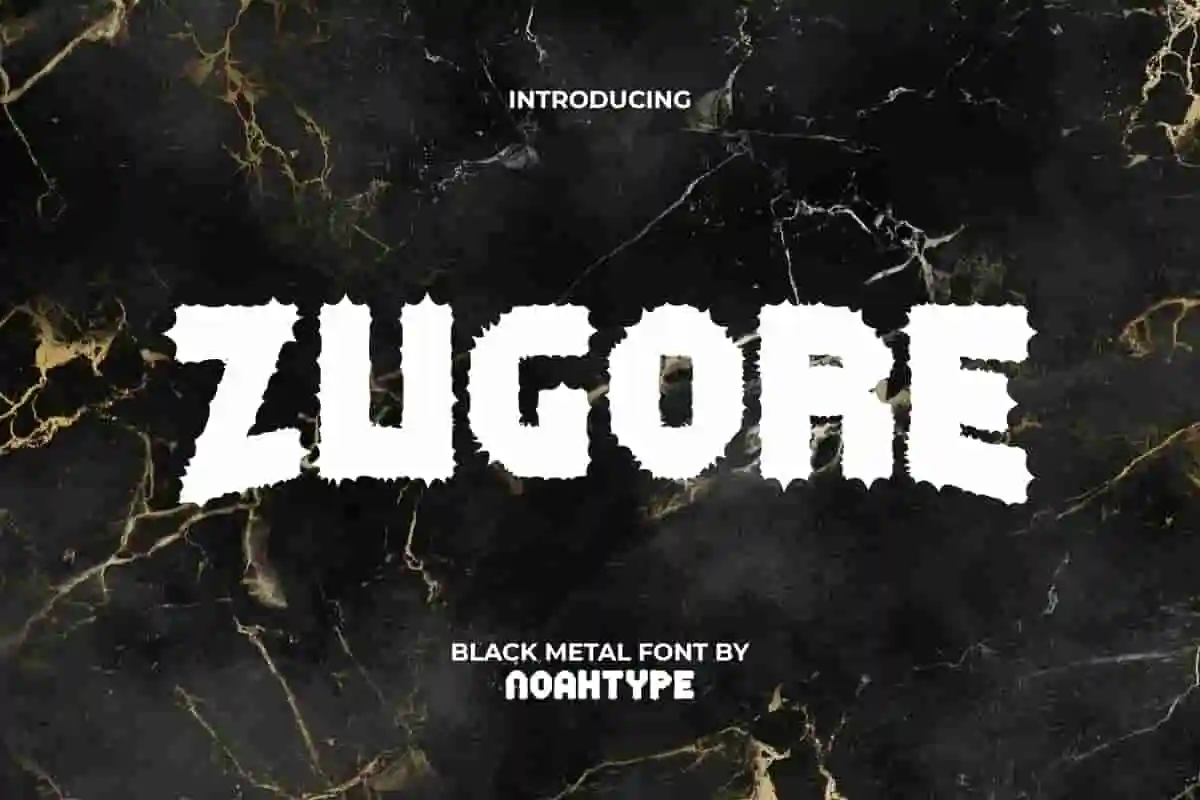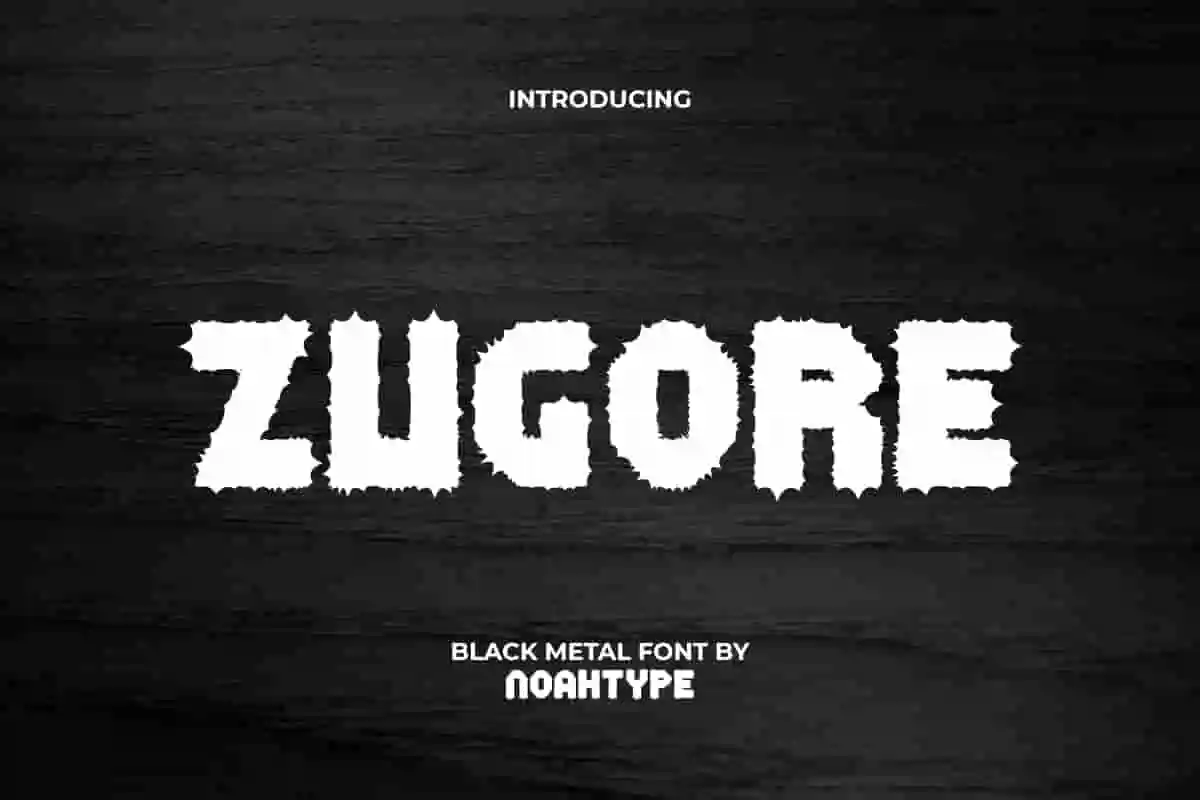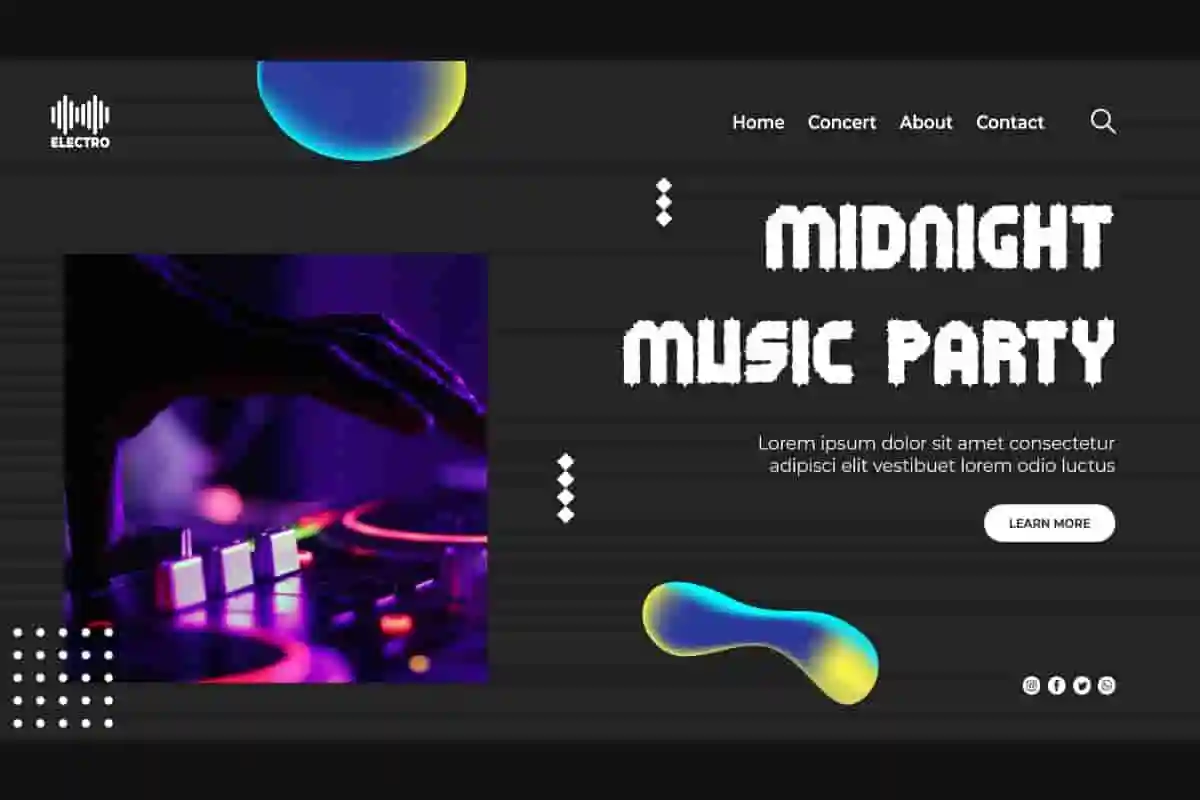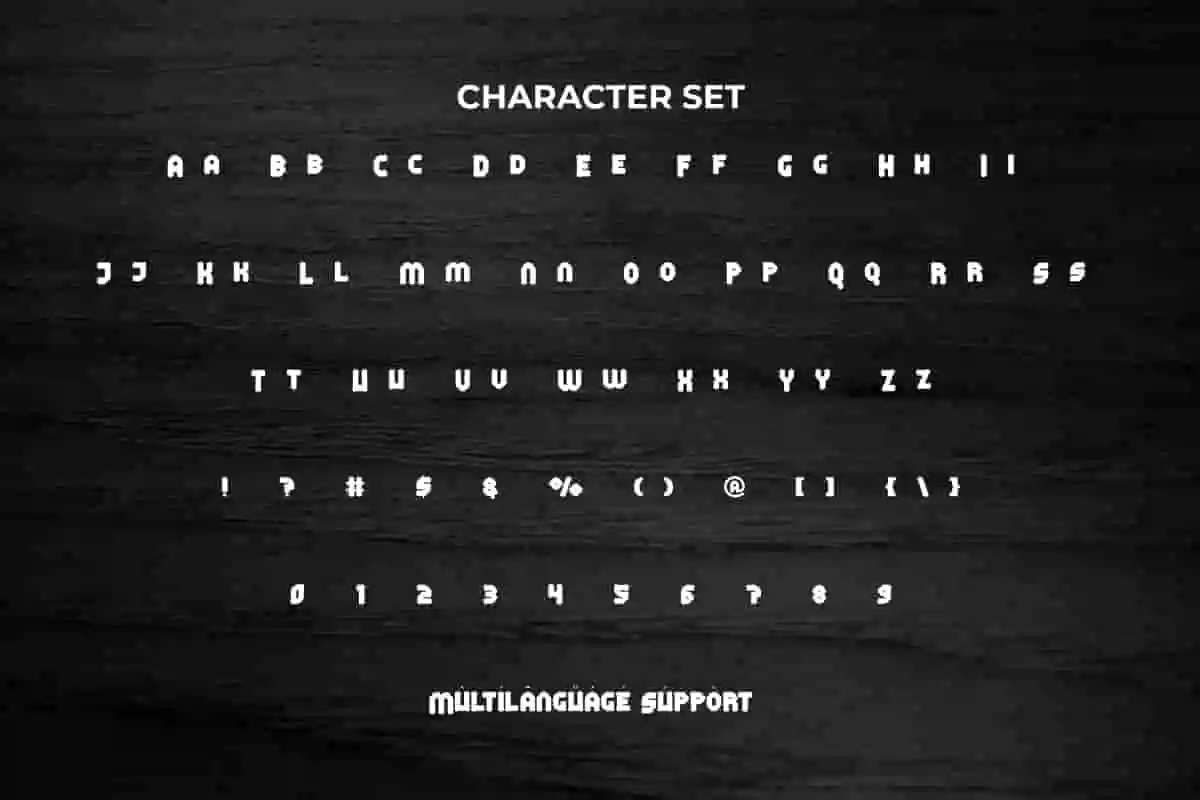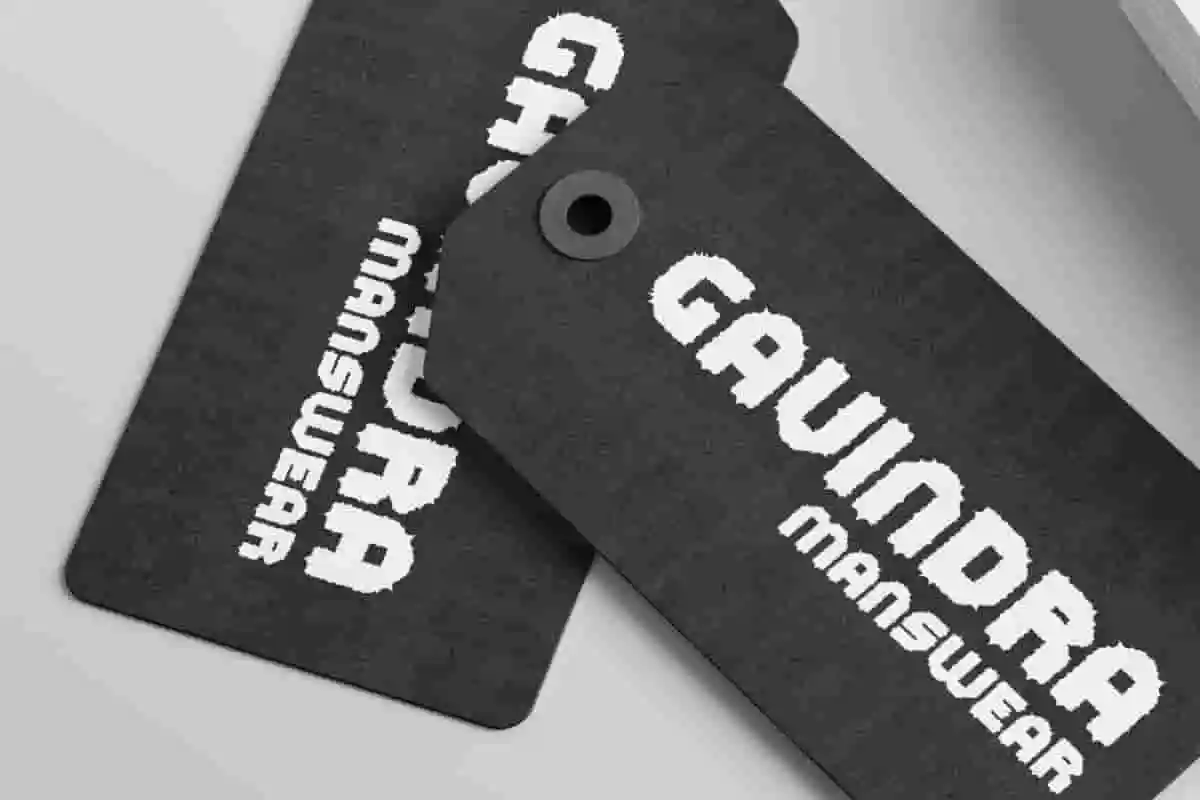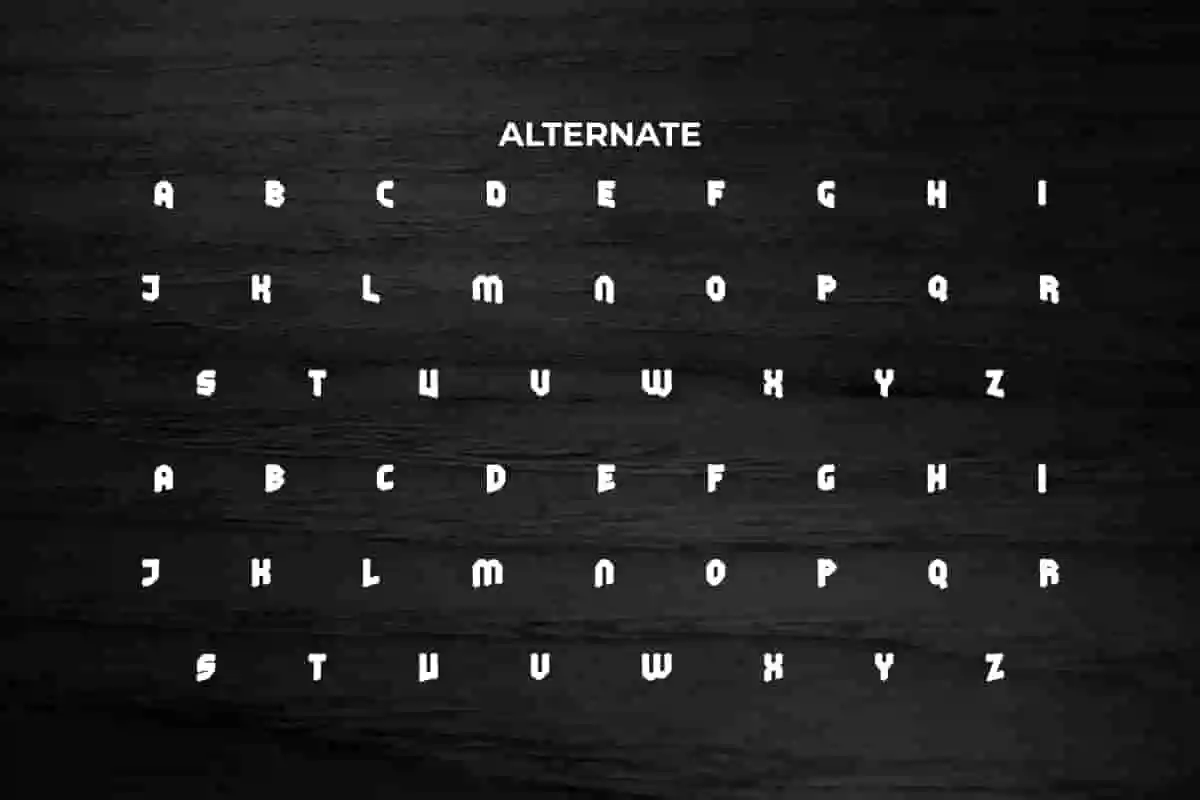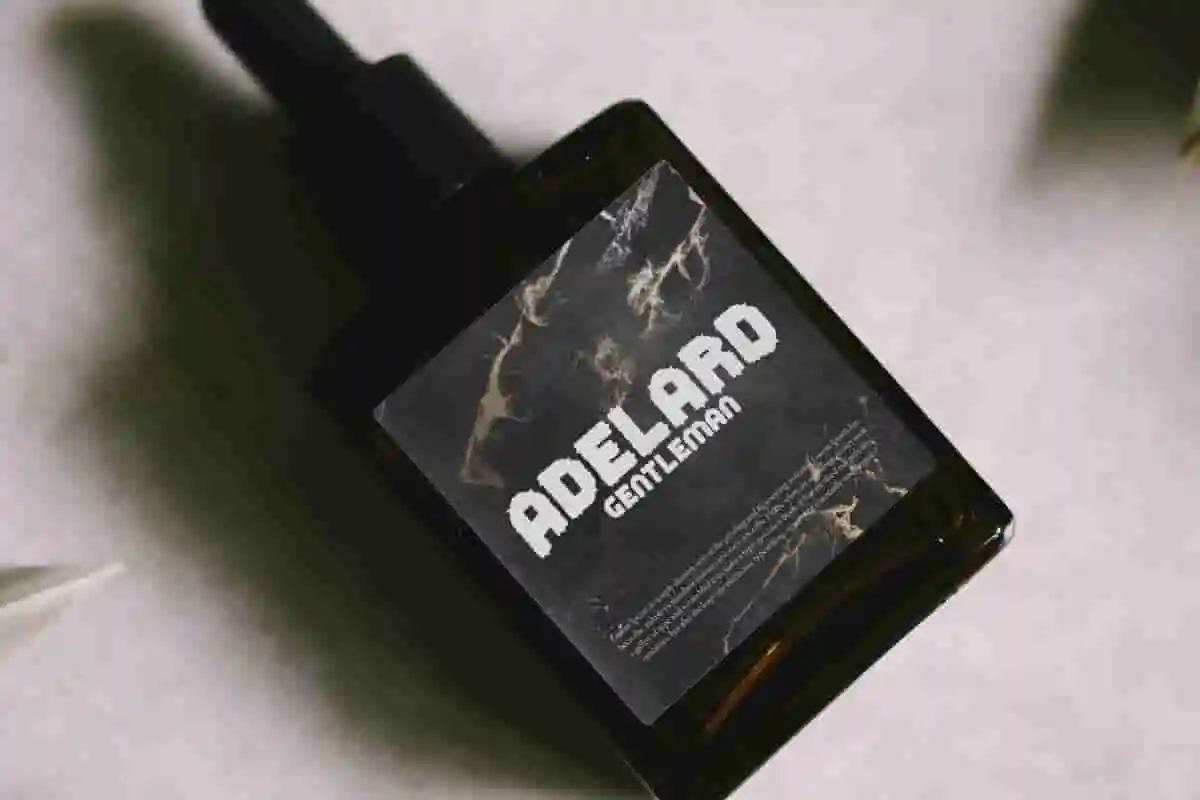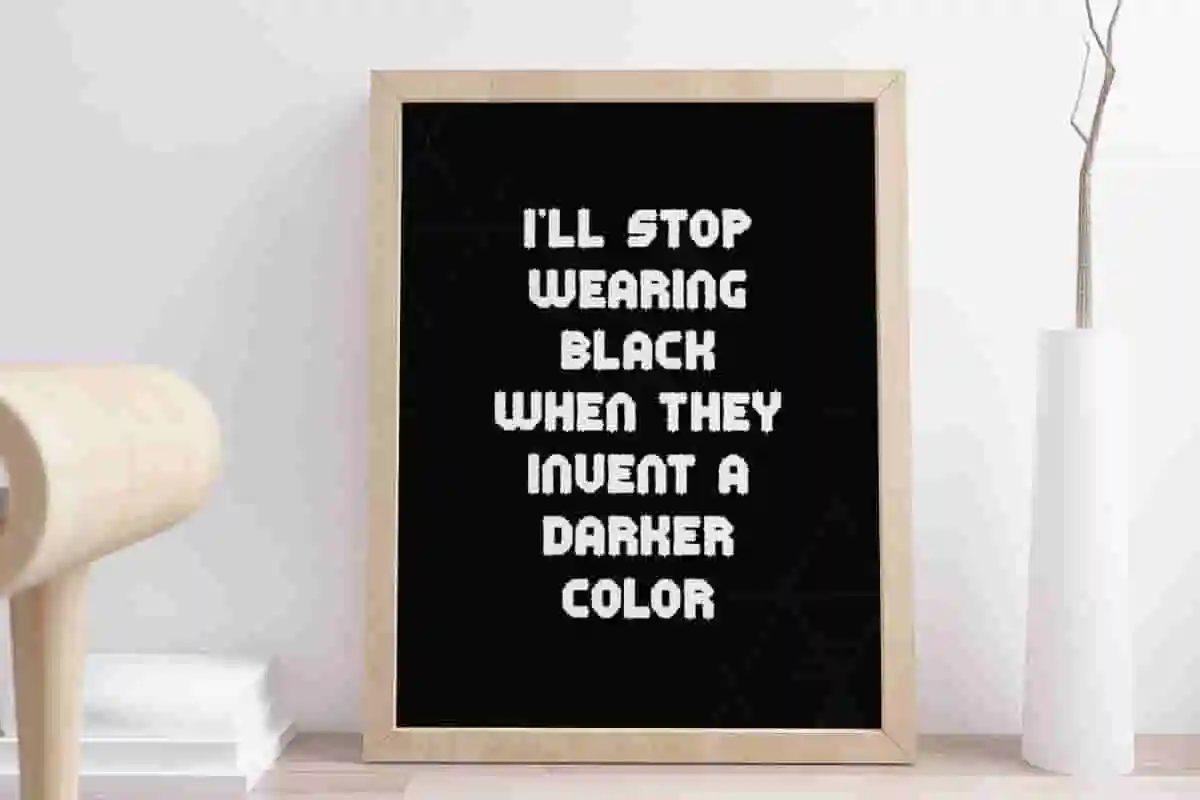
Zugore Font is a bold decorative font with Black Metal theme created by NoahType. The characters in this font are made bold with the addition of small thorns surrounding the letters to make them look scary. It will be perfect for any designs, such as custom design, invitation, comic book, signage, label, brand image, cover, marketing material, menu, poster, printing, product packaging, quotes, website, and many more!
Zugore Font includes full set of ALL CAPS for Uppercase and Lowercase Basic Characters, Numerals, Punctuation, Symbol, and Alternate character. This font will make your design amazing and also a perfect choice for many industries, such as game, movie, music, accessories, advertising, art, café, event or festival, fashion, printing, publishing, etc.